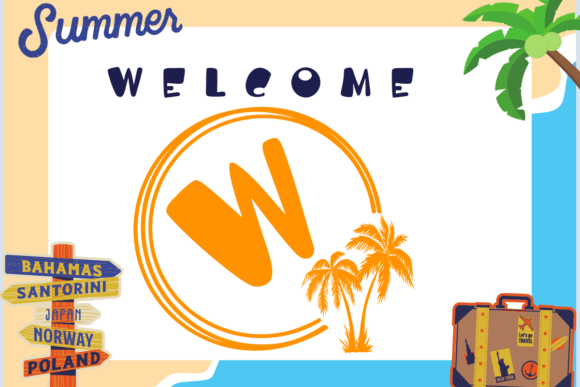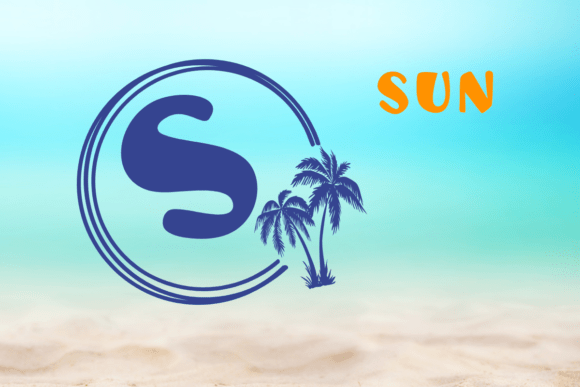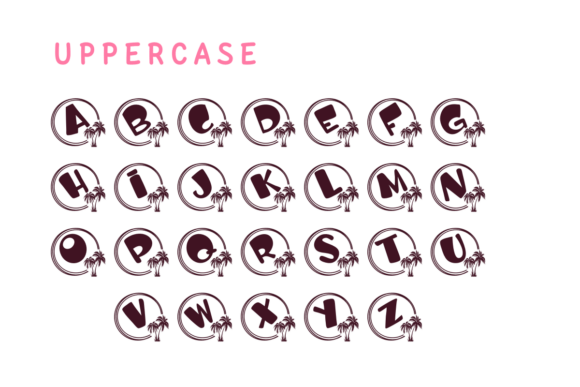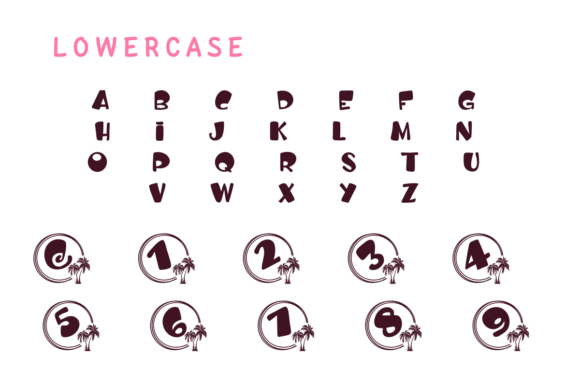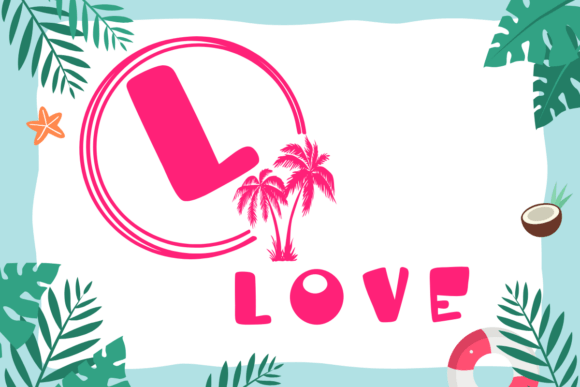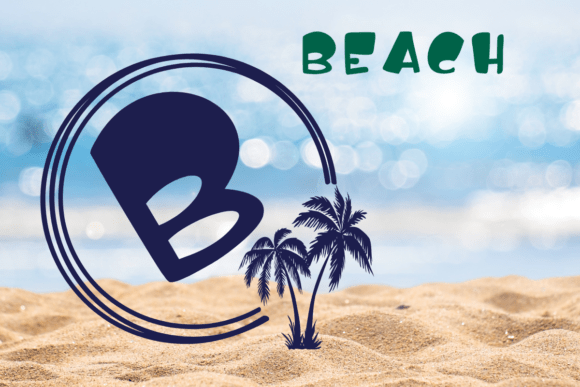
Introduction to Monogram Summer Font
As the sun shines brighter and the days grow longer, our creative minds start to wander to the perfect fonts to capture the essence of summer. And that’s exactly when I stumbled upon the Monogram Summer Font – a game-changing design resource that’s about to revolutionize your summer-themed projects. Imagine a font that seamlessly blends the elegance of monogram style with the carefree spirit of tropical vibes. Sounds like a match made in heaven, right?
Key Features of Monogram Summer Font
- High-quality design suitable for creative projects, with a modern and elegant feel.
- Features a transparent background, allowing for easy customization and integration into various designs.
- Designed with a large x-height, making it highly legible and suitable for use in a variety of contexts.
Honest Review: Monogram Summer Font
One of the things that works well with this font is its unique, modern design. It’s perfect for anyone looking to add a touch of sophistication to their design without breaking the bank. ✨
- Unique and modern design
- High quality and clear to read
However, there are a few limitations to consider. The font only comes in a limited number of styles, which may not be suitable for all design projects. Additionally, the transparent background option is not as seamless as I would have liked. ⚠️
Overall, I’m impressed with the Monogram Summer Font. It’s a great design resource for anyone looking to add some flair to their creative project. While it may have a few limitations, its high quality and unique design make it a worthwhile addition to any designer’s toolkit.
Monogram Summer Font
Tips for Getting the Most Out of Monogram Summer Font
To get the most out of the Monogram Summer Font, use it with a transparent background to give your designs a clean and modern look.
The Monogram Summer Font is perfect for:
- Summer-themed designs
- Food and beverage branding
- Photography and graphics
Alternatives to Monogram Summer Font
Comparison to Monogram Summer Font: While both fonts have a similar feel, Alex Brush is more refined and elegant, making it ideal for designs that require a touch of luxury.
Pacifico is a high-quality, sans-serif font that’s perfect for creative projects, especially those that require a modern and elegant vibe. It’s available for free download and features a transparent background, making it easy to use in various design scenarios. When to use: Travel-themed designs, brochures, and marketing materials.